We have just added four additional Latin-script typeface families to the Indian Type Foundry library: Deccan, Quilon, Touche, and Vyoma. Each of these designs is unique, and we hope that you’ll find great uses for them. Below are a few details about the special aspects of the four designs.
Deccan
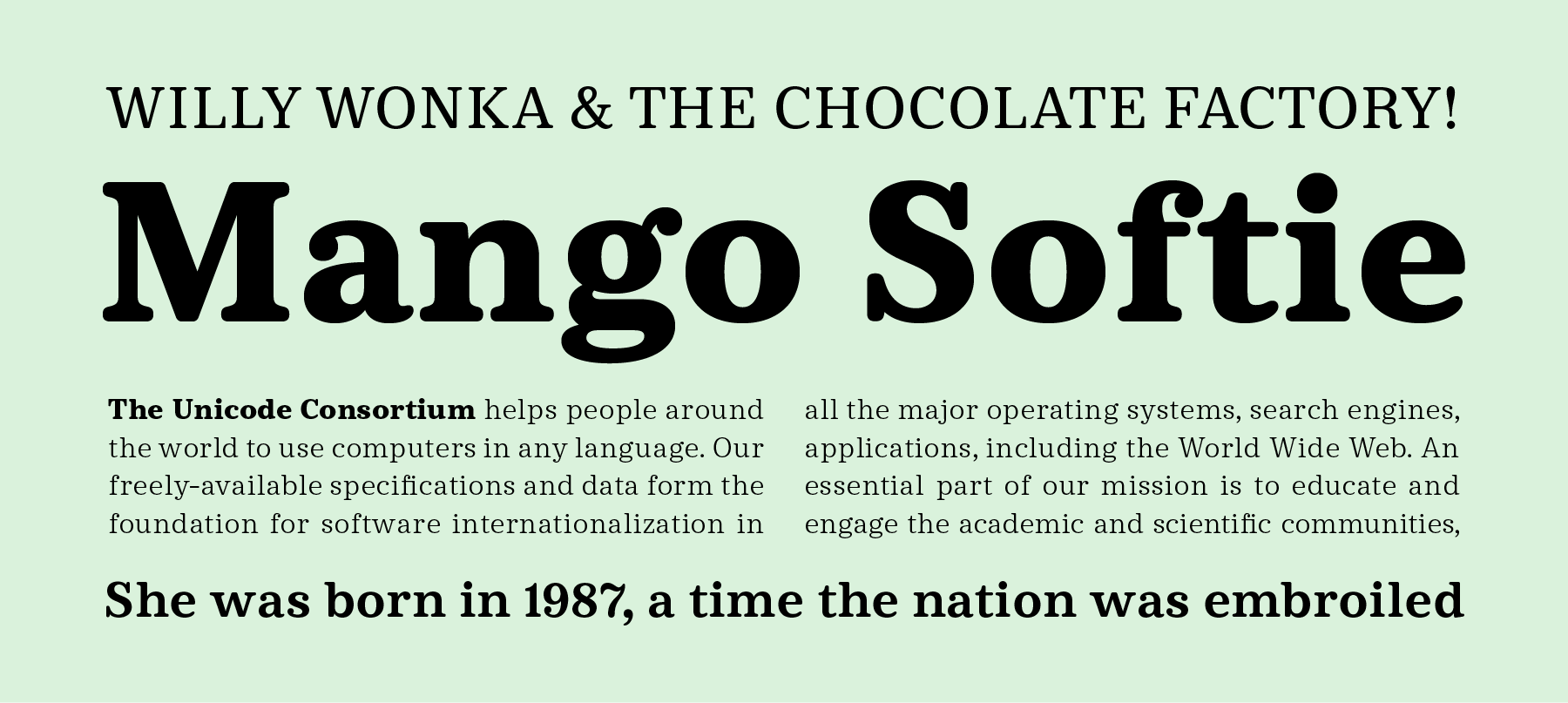
Deccan (Latin) is a lovely slab serif with soft terminals. Not only are the typeface’s stroke endings rounded, one could also be described as friendly-looking – or even cute! Deccan’s letters are built around a vertical contrast axis. The forms used throughout the design simultaneously call the most interesting 19th century British modern types to mind, as well as quality 1970s digital faces. At its core, Deccan is a text face. However, the Bold weight’s letterforms appear so puffed up that this font can actually appear quite cuddly. The Bold just has to be used in editorial design and on packaging. The Light weight makes a fine headline choice as well; all of Deccan Light’s characters in appear monolinear, but as the family’s weights increase, so does the amount of stroke contrast visible in the family’s letters. Each of the five Deccan styles available is the work of Ramakrishna Saiteja, who also designed the Deccan Telugu family that we released at the beginning of the June.
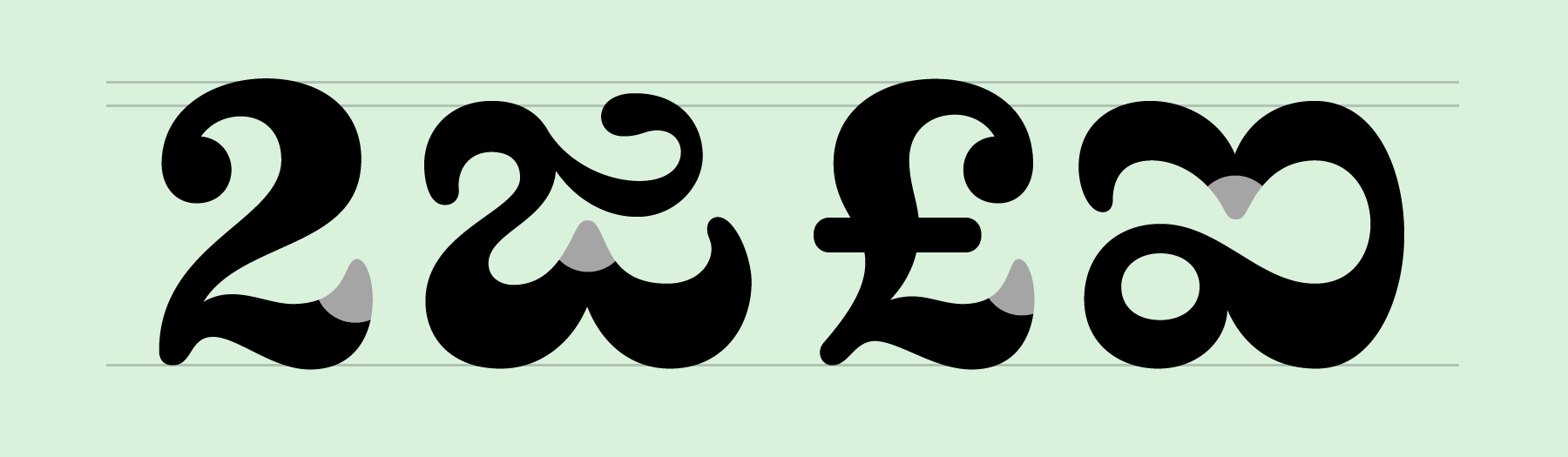
When it comes to Deccan’s numbers, the great curves that make up their design are instantly apparent. Often, numbers are overlooked by designers; here they really shine. Both the numerals and the lowercase letters are full of ball terminals – another one of Deccan’s interesting characteristics. Each font within the Deccanfamily includes 383 glyphs. The term “Deccan” itself refers to a large plateau in India that makes up most of the southern part of the country.
Quilon
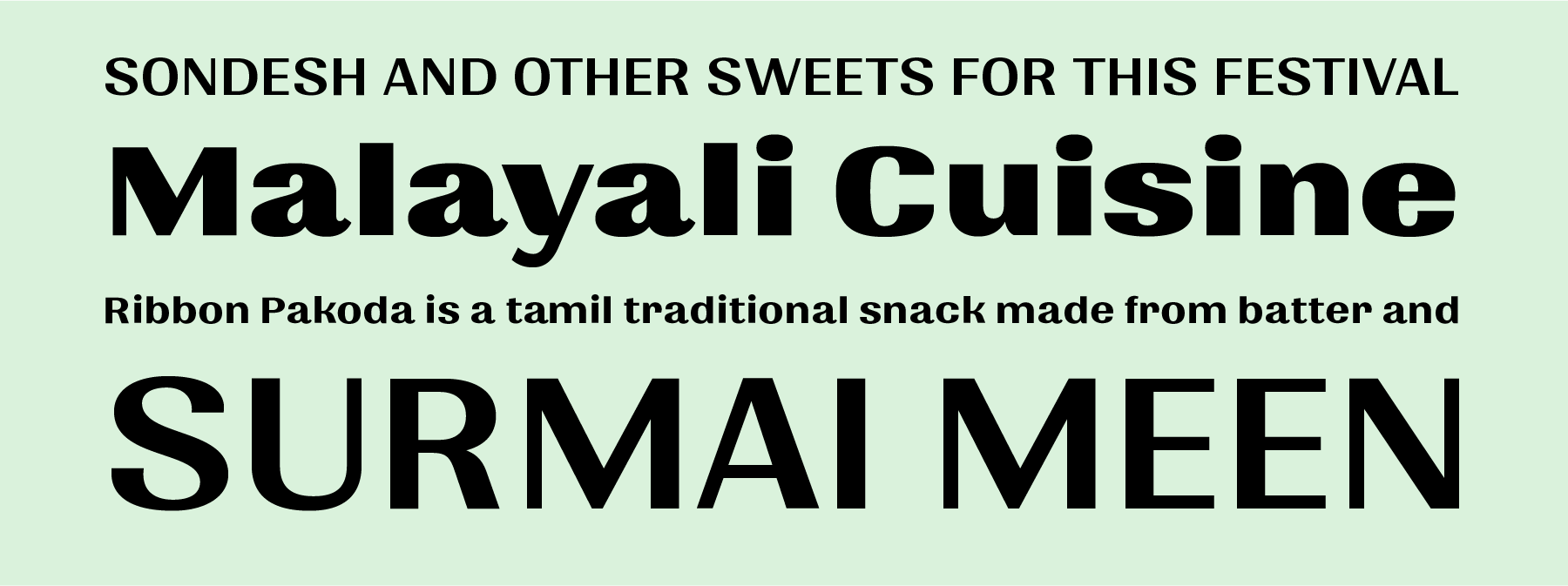
Quilon (Latin) is also a relative of an Indian-script typeface we recently released: Quilon Malayalam. Both Quilon and Quilon Malayalam are the work of ITF’s Jonny Pinhorn. In terms of its design, Quilon is a high-contrast sans serif family. Like Deccan, it’s design features also transcend the centuries – elements of both 19th century English grotesques and 1990s postmodernism are present in its letterforms. Looking at the distant past, you can find parallels in the curls on Quilon’s uppercase Q and lowercase a, g, or r that appear very much like early grotesques, while the question, “what happens to a modern serif face’s forms if you strip off all the serifs?” is very postmodern.
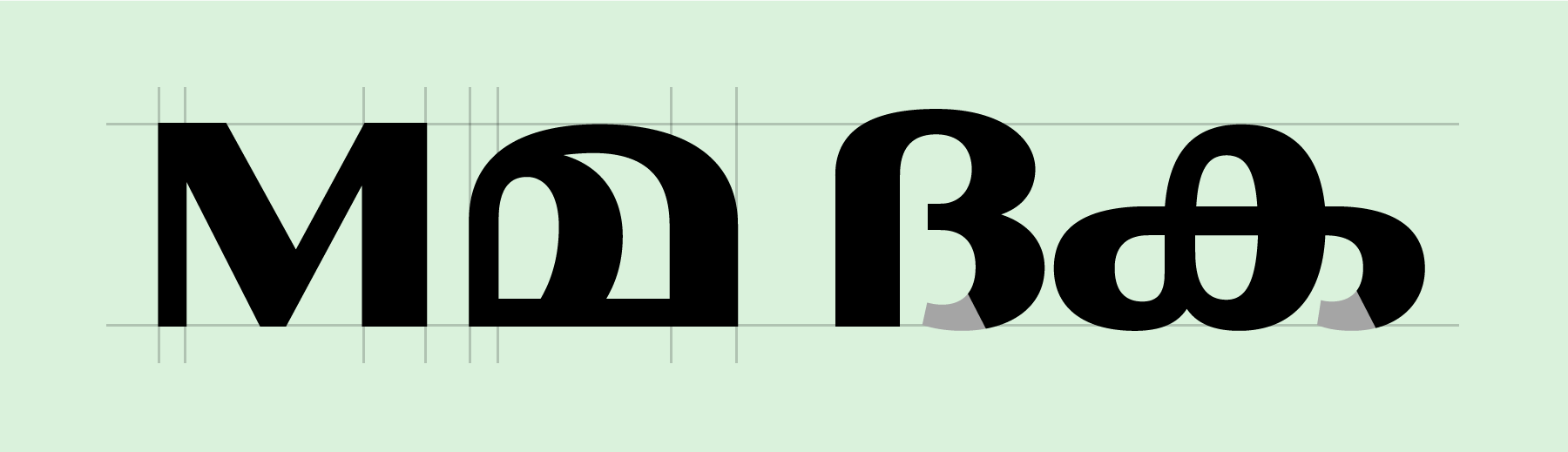
In terms of the best areas for use, Quilon is most suited for display typography. As the weights progress throughout the four fonts in the family, their stroke contrast increases dramatically. For text set in the Regular weight, the Semibold weight may be the best choice to use for emphasising individual words; the family’s Bold weight is best reserved for headlines. Each font in the family includes 391 glyphs. “Quilon” is the previous name for Kollam, a city located in Kerala, India.
Touche
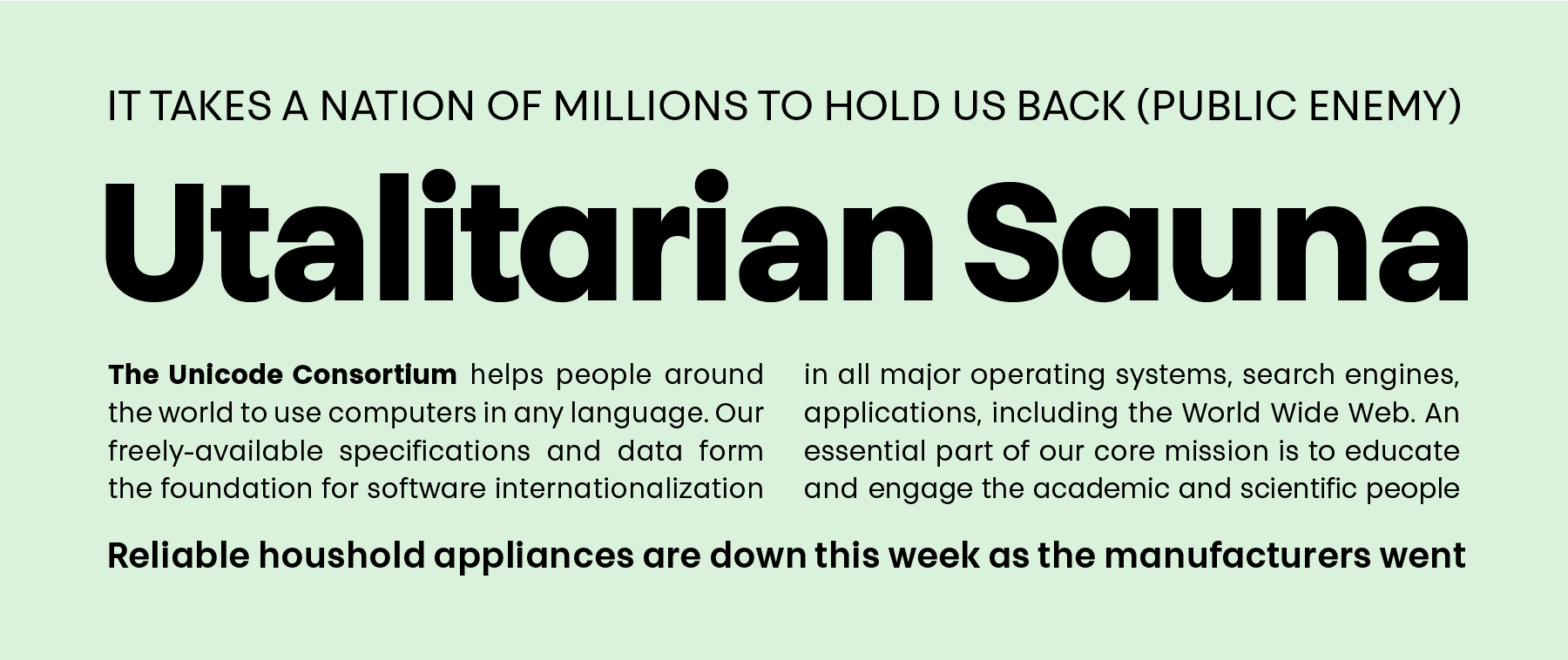
The Touche typeface takes its name from the French word for “touch,” which is fitting, as the best way to describe Touche is to call it a geometric sans with a special touch. Touche is not made up of the standard geometric forms found in many other typefaces of that genre; the internal strokes on the G and the Q, for instance, are very elongated. A top stroke has been added to the J, without forcing the glyph to become any wider. The S hugs the space inside of it; its arms wrap around the letter’s counterforms lovingly. The lowercase j has been reduced to its barest, most minimal nature, but the lowercase t does not follow suit and take the form of a cross – its bottom has an outstroke. Touch has two especially nice punctuation marks, too: the ? and the @. All of the family’s letterforms remain optically monolinear, even in the Bold weight. Like Quilon, Touche was designed at ITF by Jonny Pinhorn.
Vyoma
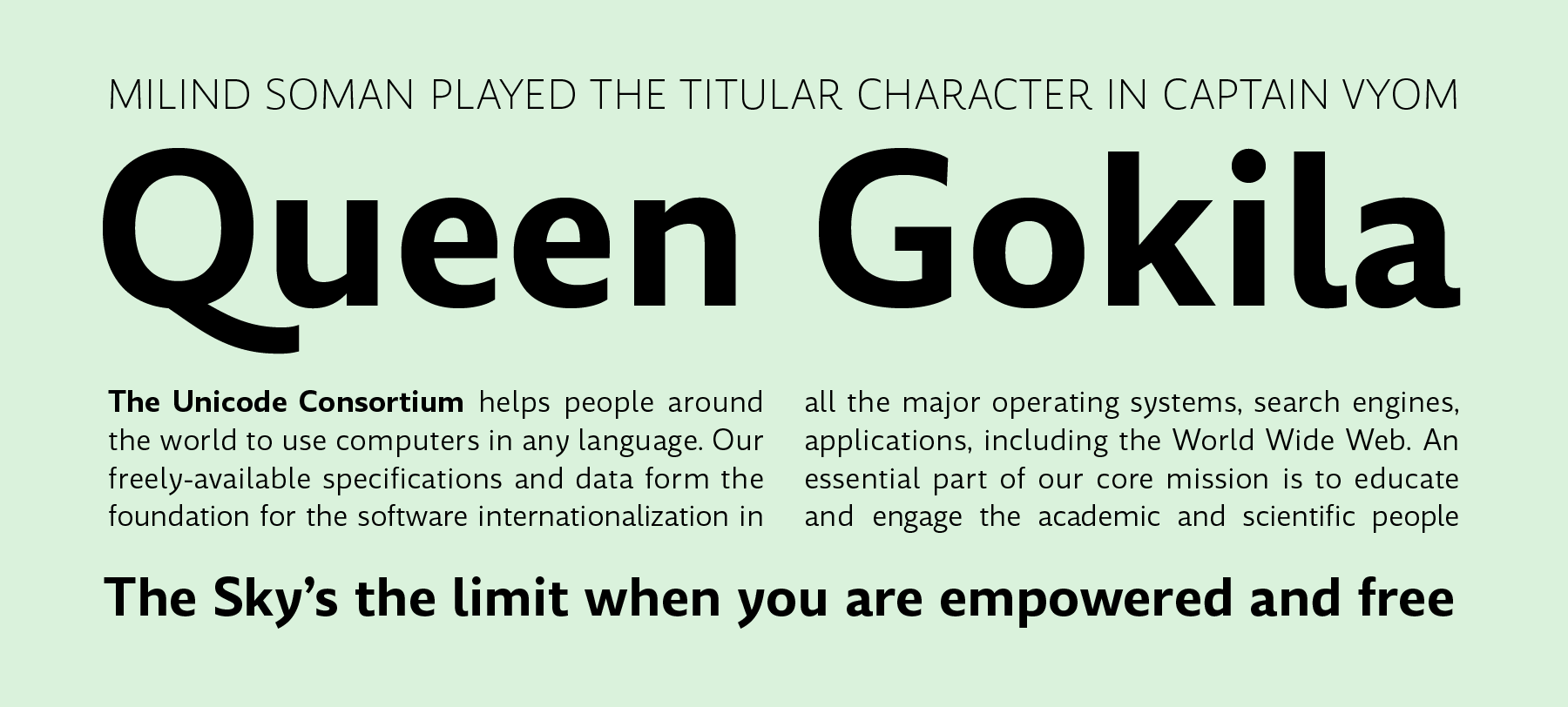
Joana Correia’s Vyoma is a friendly-looking typeface, similar to Deccan and Touche. It is an outstanding humanistic sans: its letterforms appear both playful and nice, and the stroke contrast is pretty low in all four weights of the family. Several letters (start your search with the capital R!) feature curved out-strokes. These are unusual for a sans serif design, but they definitely add personality. Vyoma has “swing” to it; just take a look at the capital Q or the lowercase b. On some letterforms, strokes end in vertical shears; others are cut off diagonally. The counterforms in this design are very open, and they help create words that are highly legible and a joy to read. Vyoma is truly an all-around sans serif family, and an excellent choice for use in a very wide variety of applications, including corporate identity, signage, and text (onscreen and in print). Each font contains 416 glyphs. In Hindi, “vyoma” is a word for the sky.